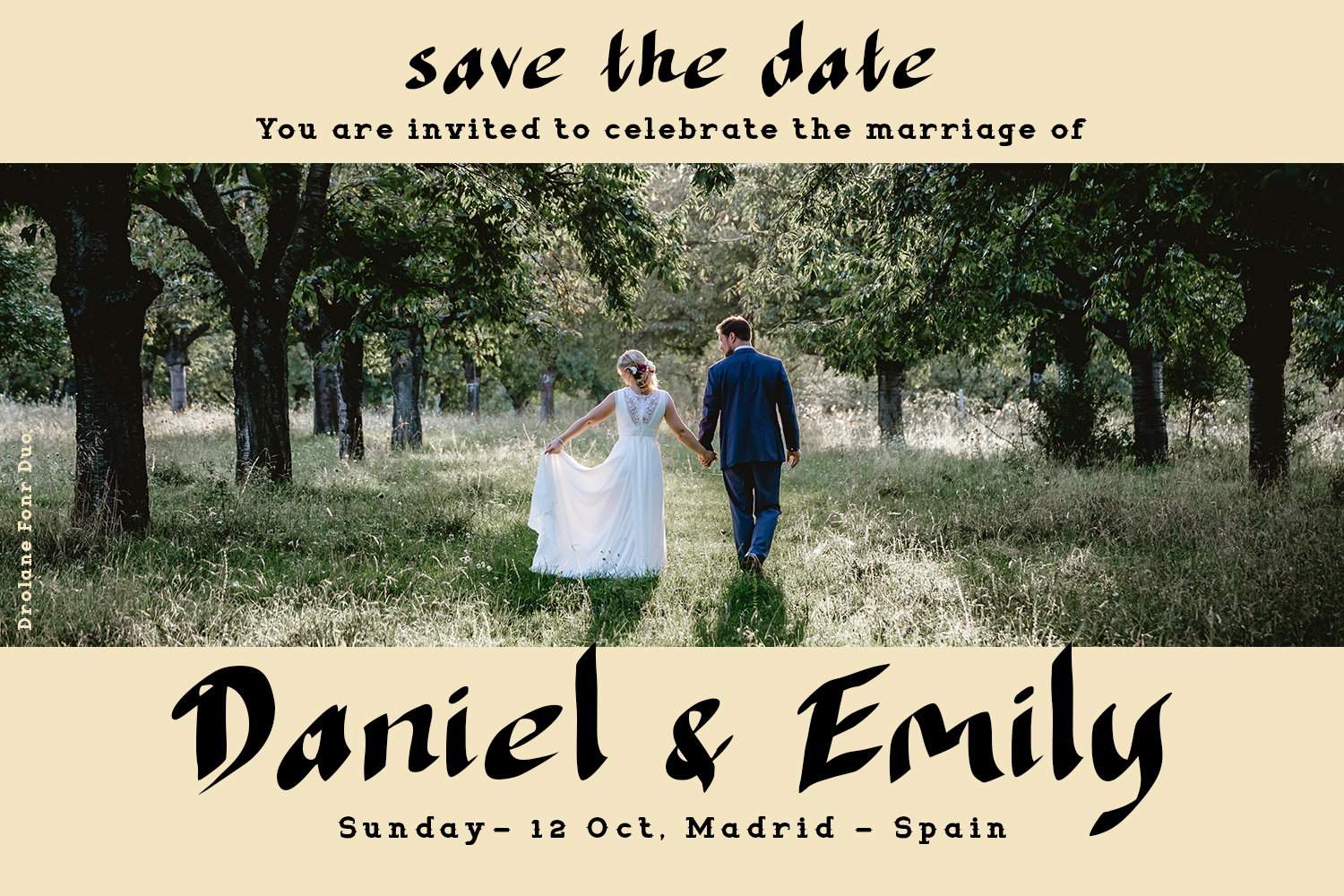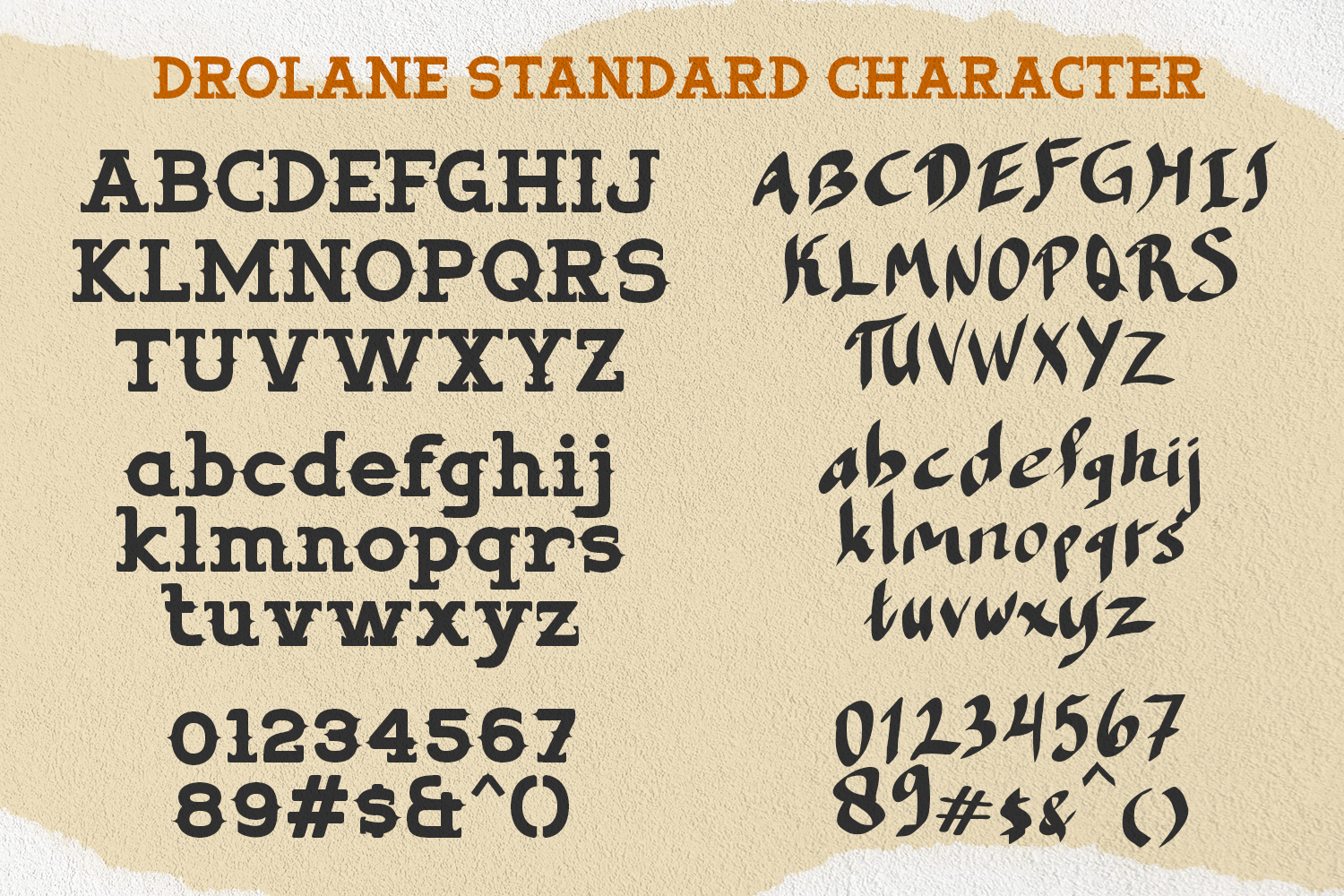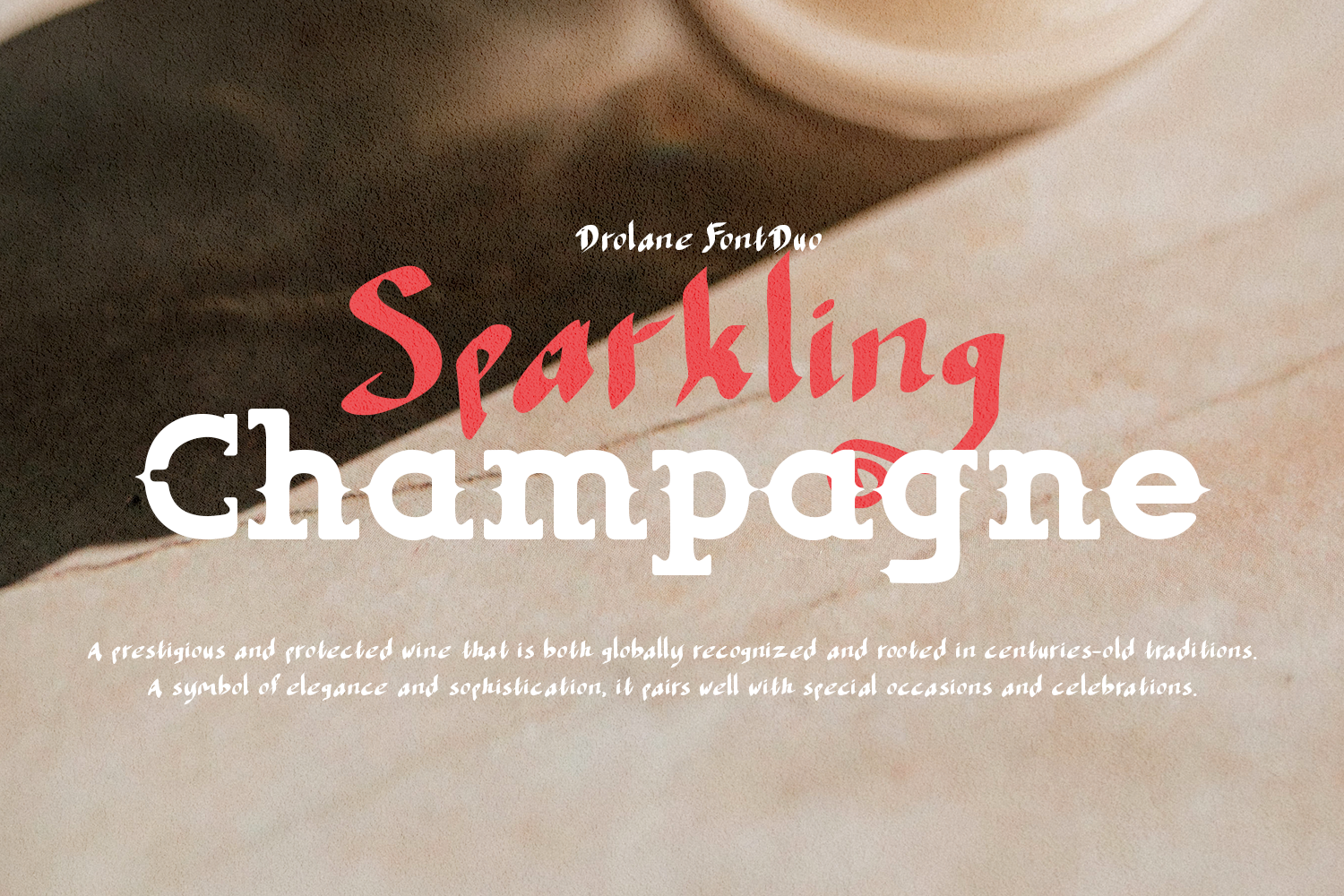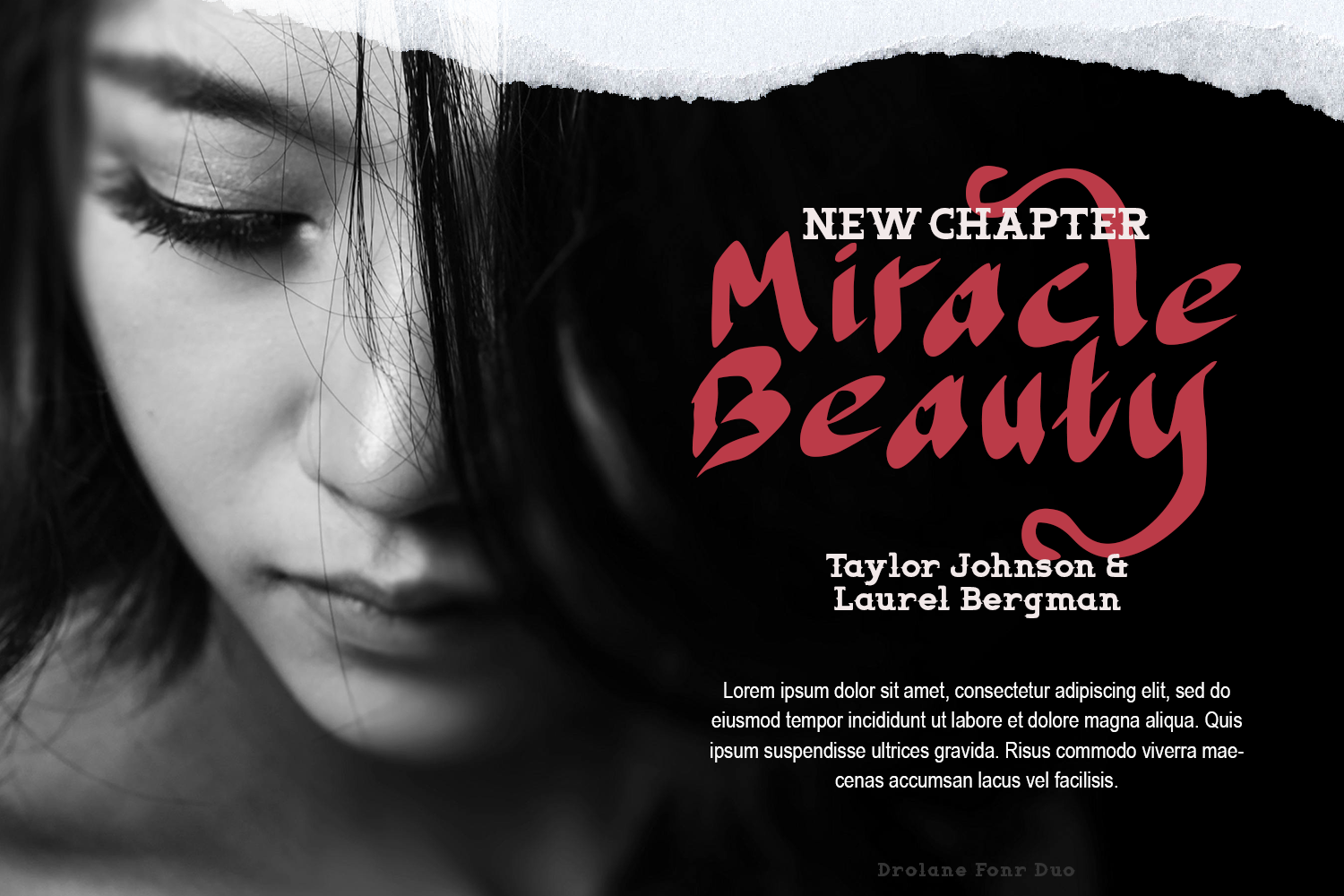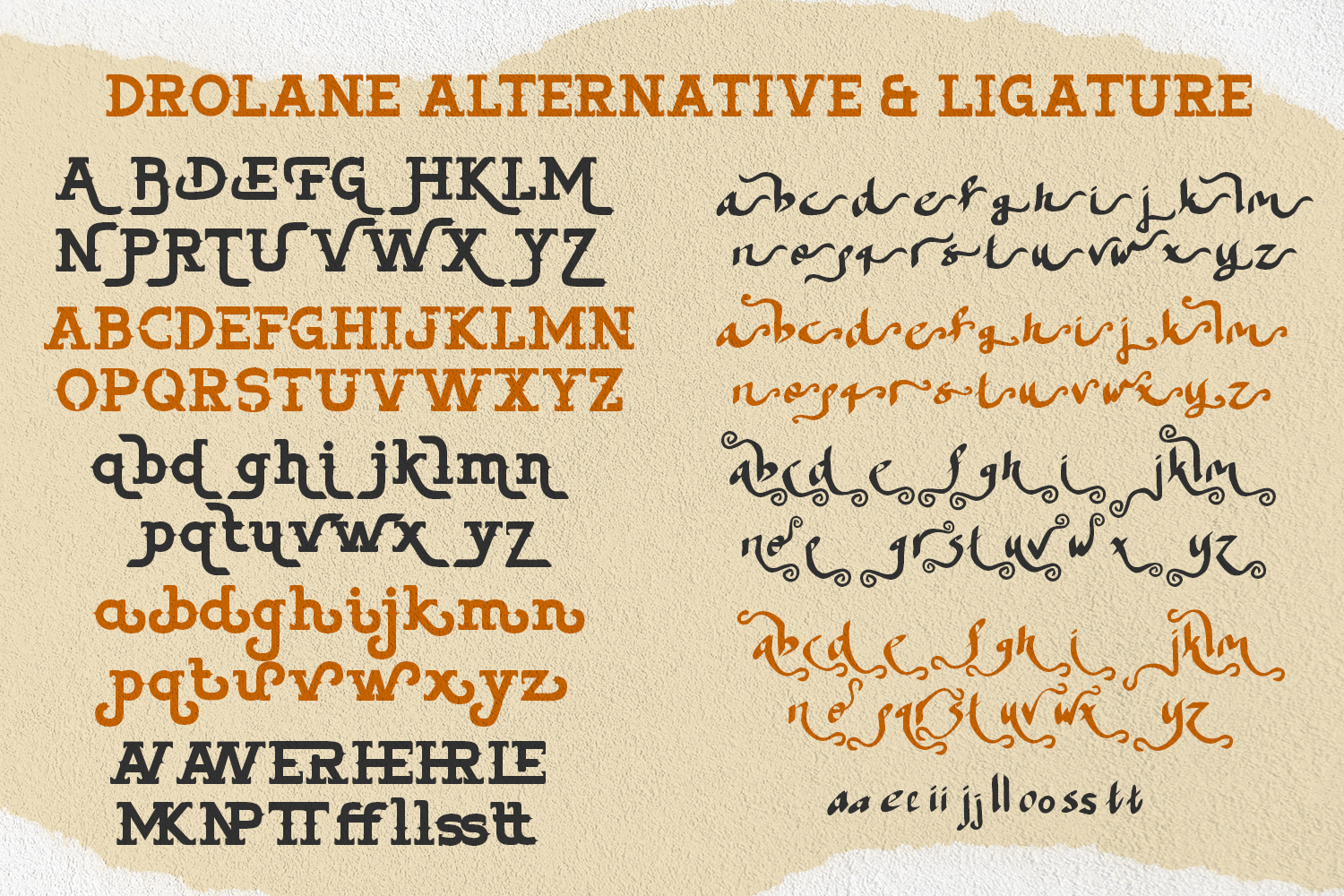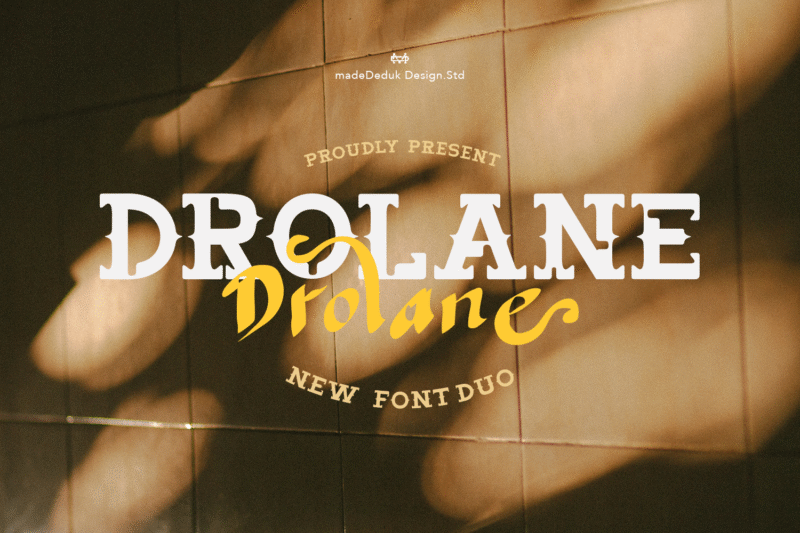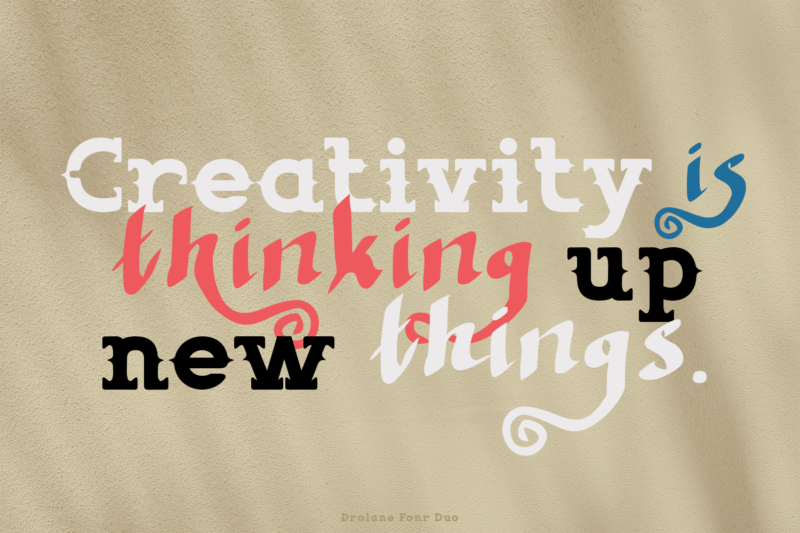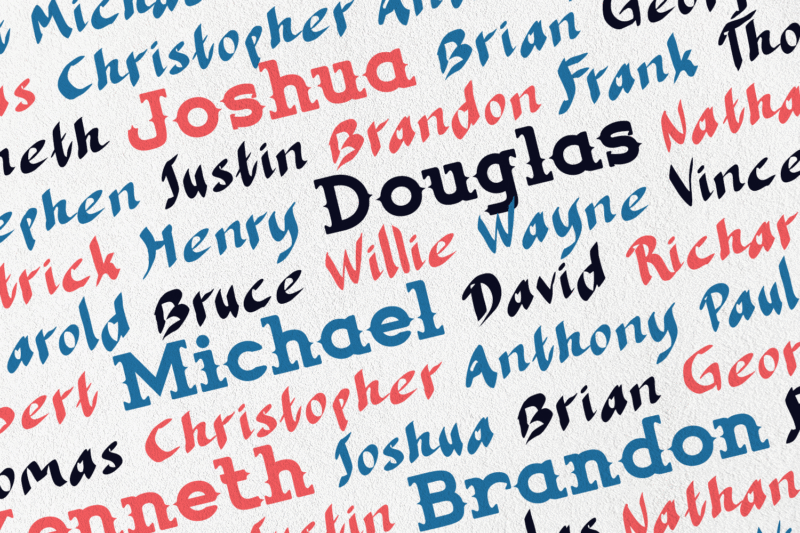
Introducing Drolane is a font duo serif font combined with brush handwriting. This font has a minimalist and simple look. However, this font brings a elegant and attractive style to modern logos, websites, social media quotes, wedding stationery, and more.